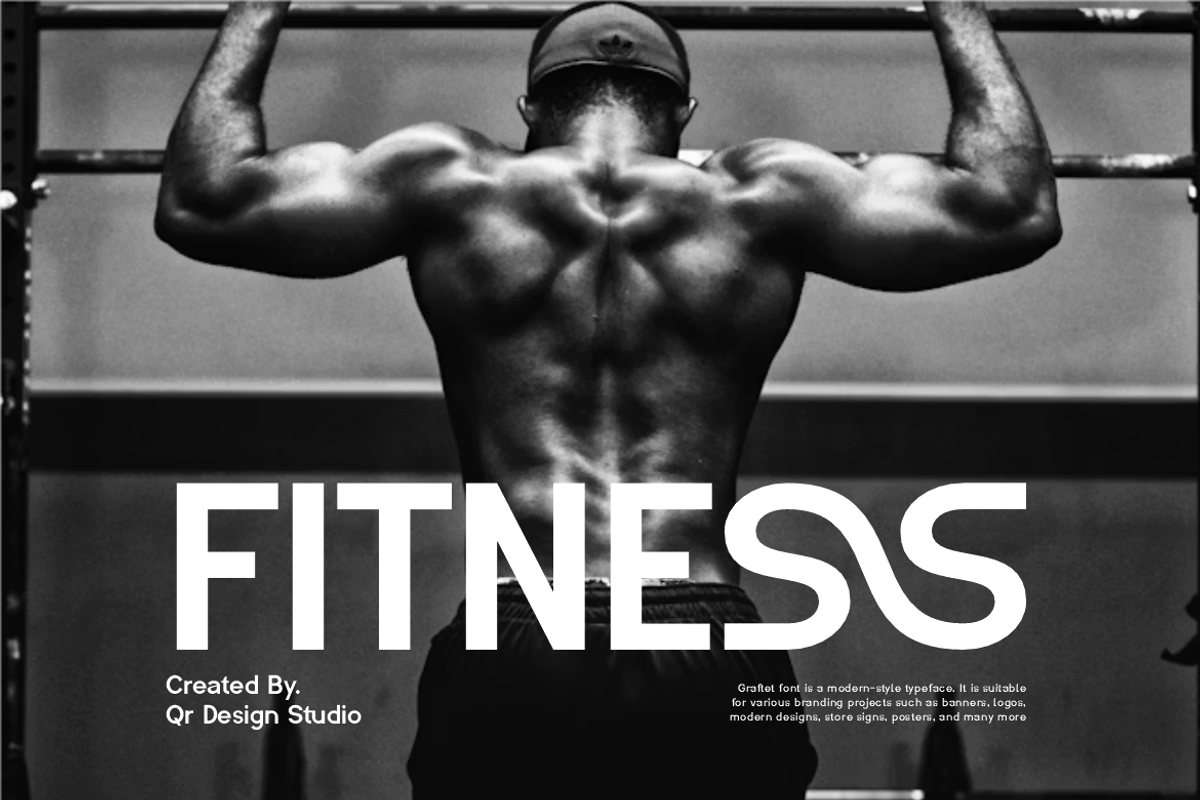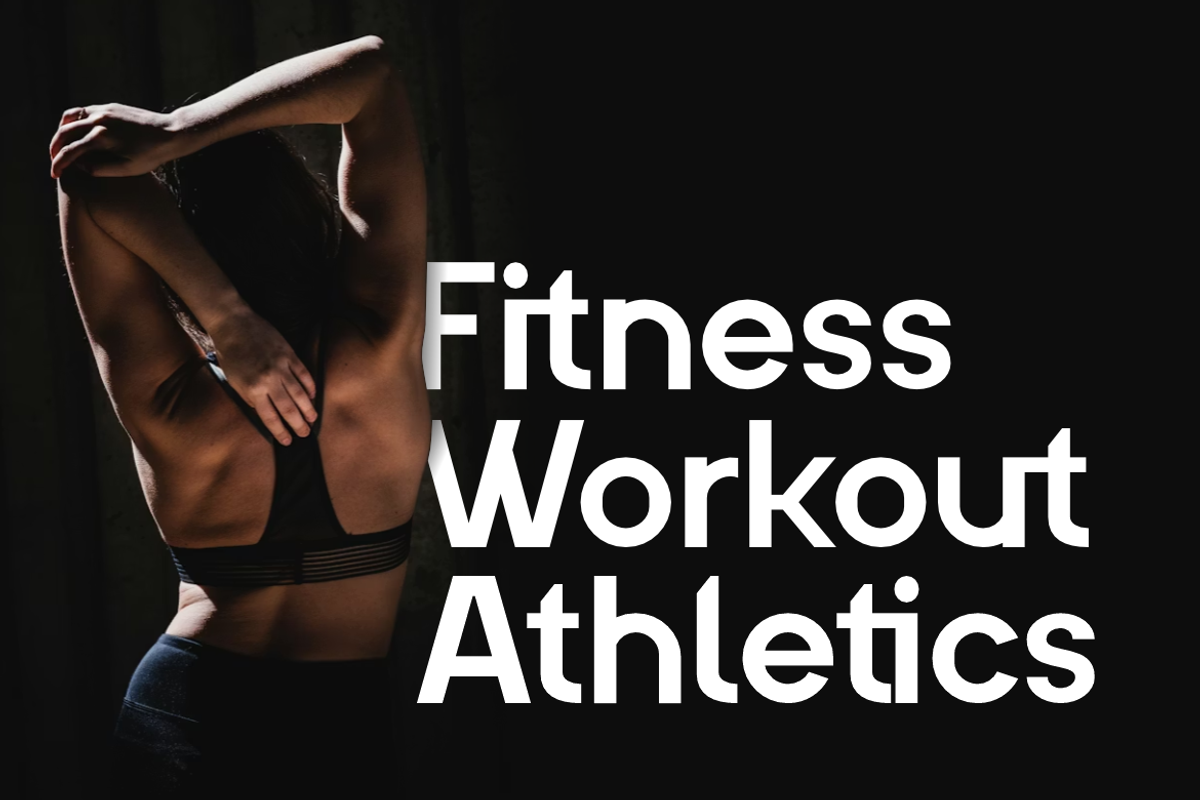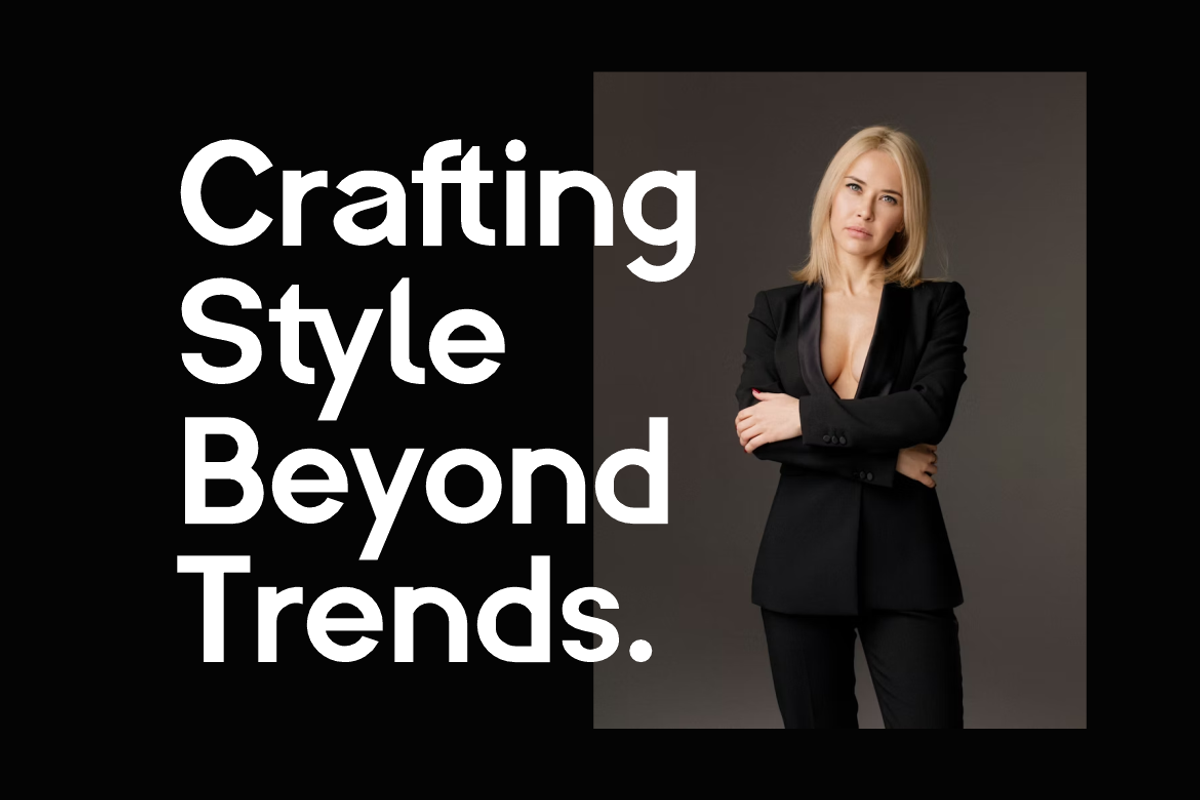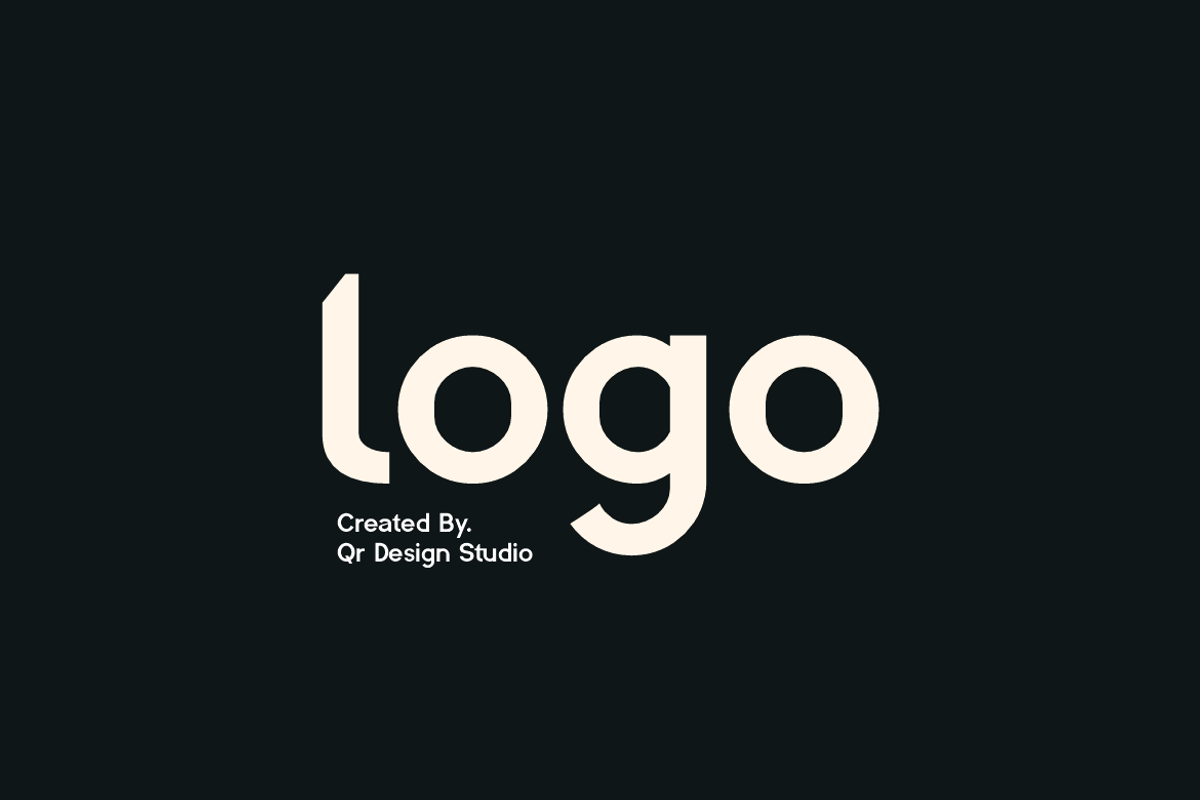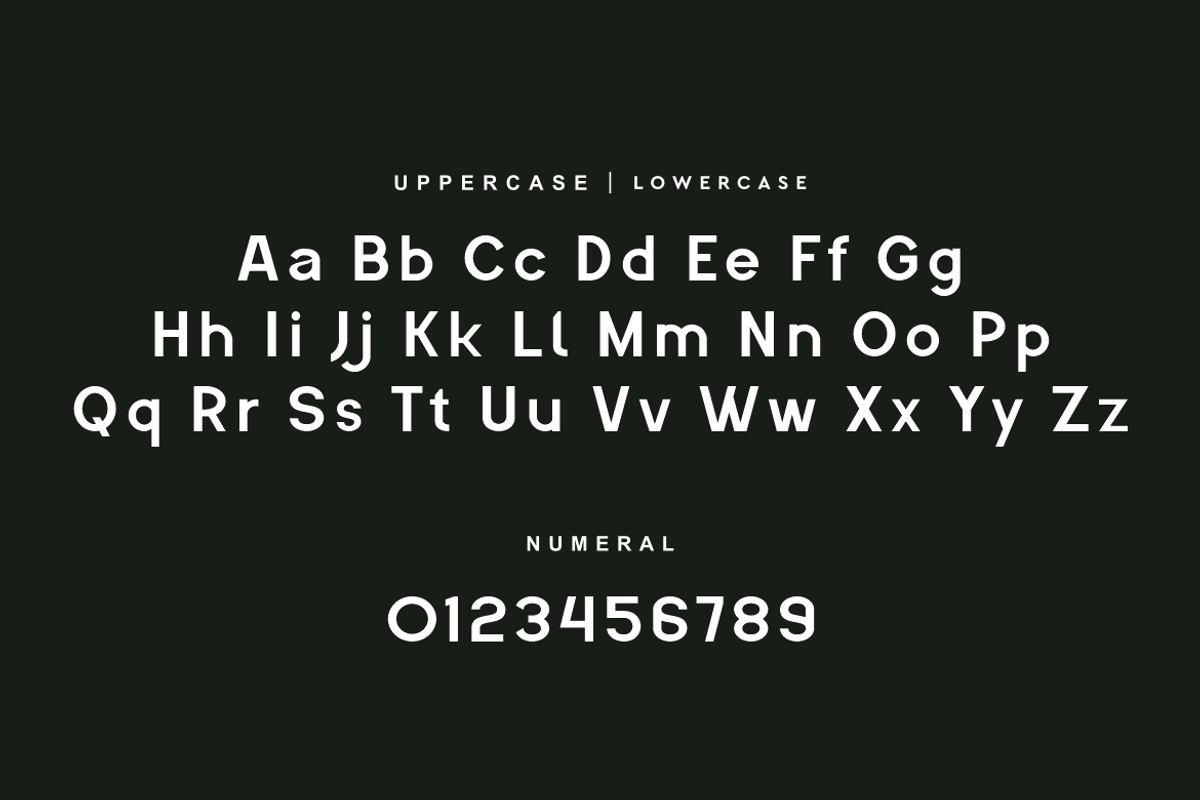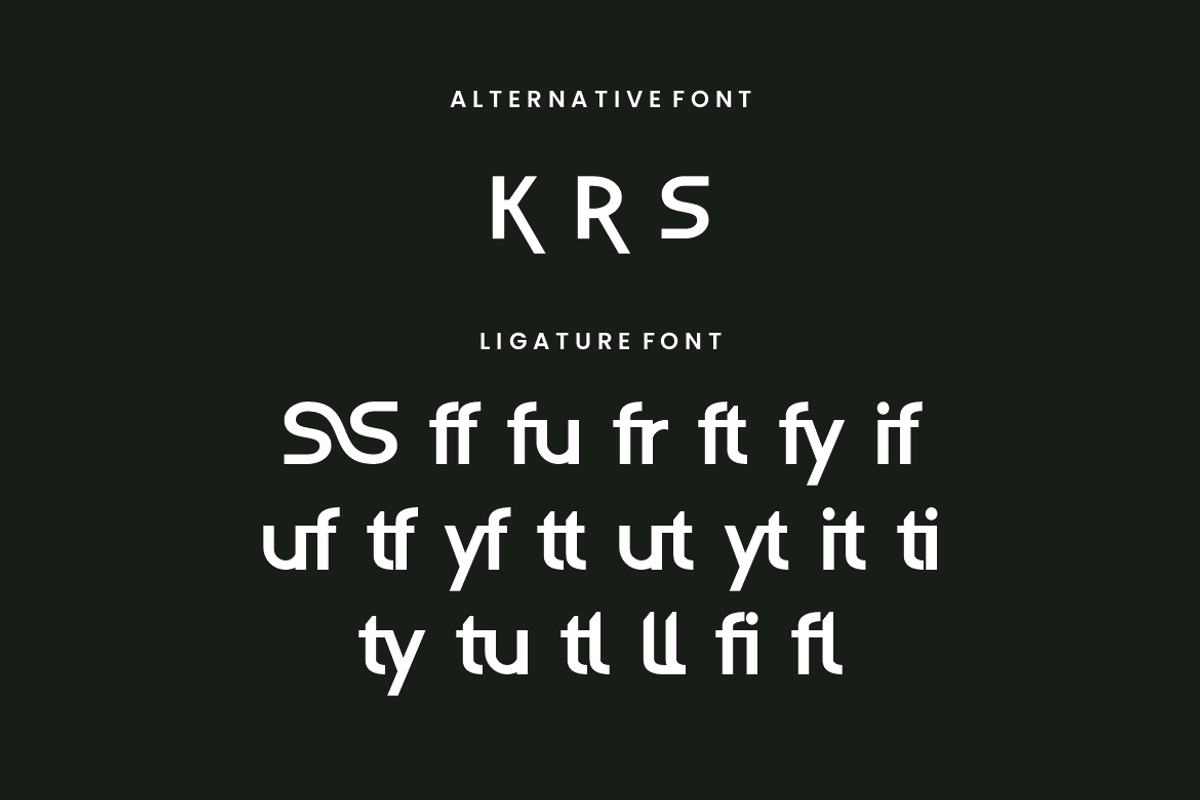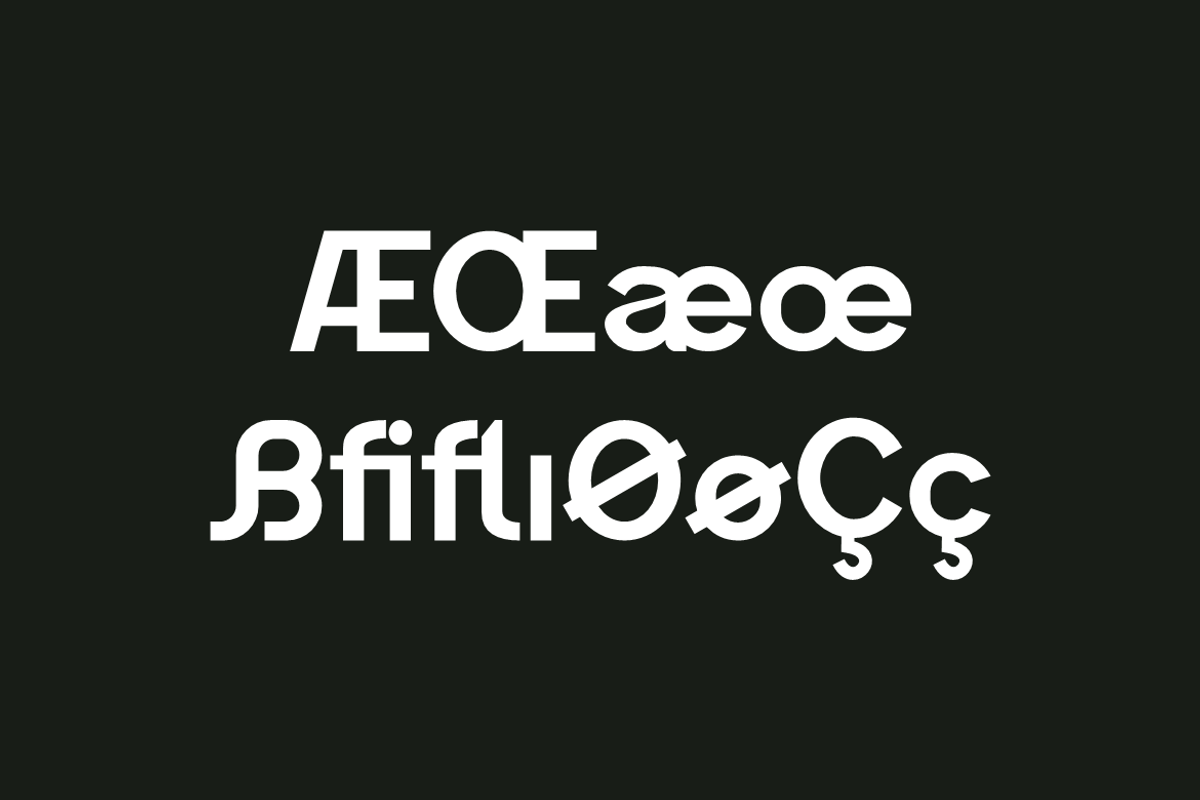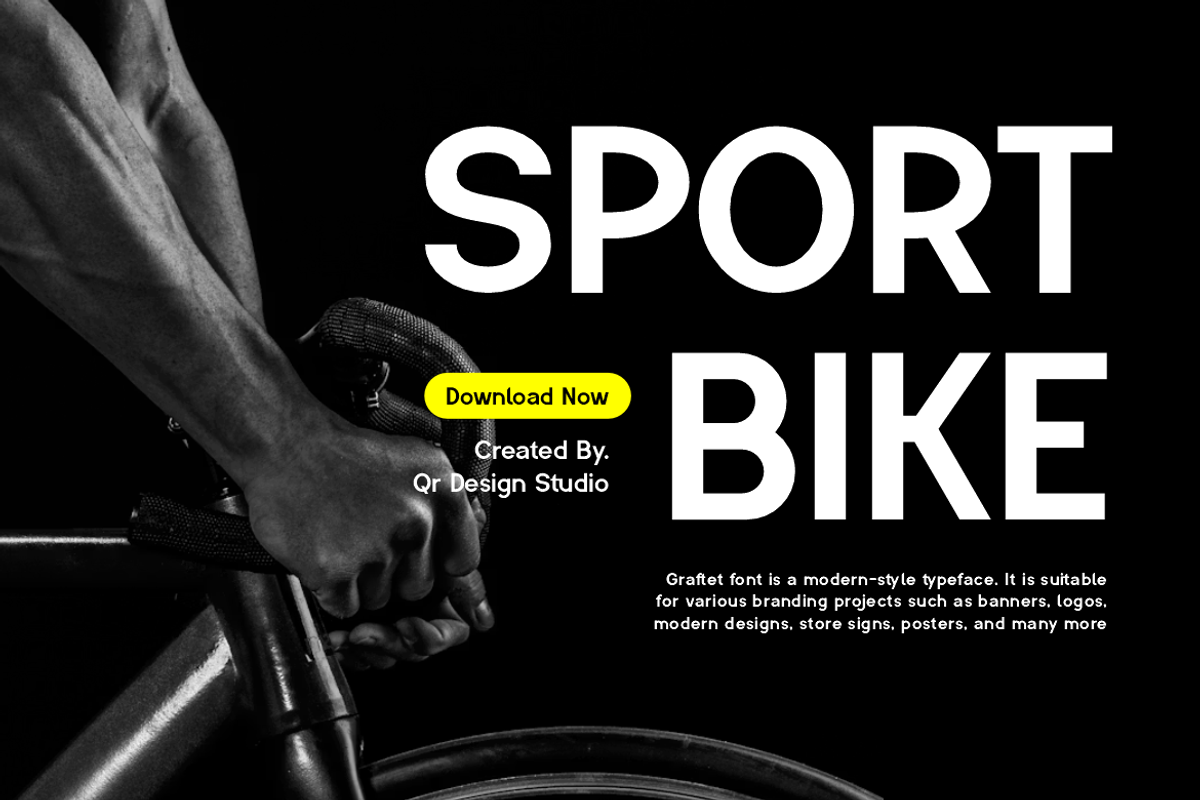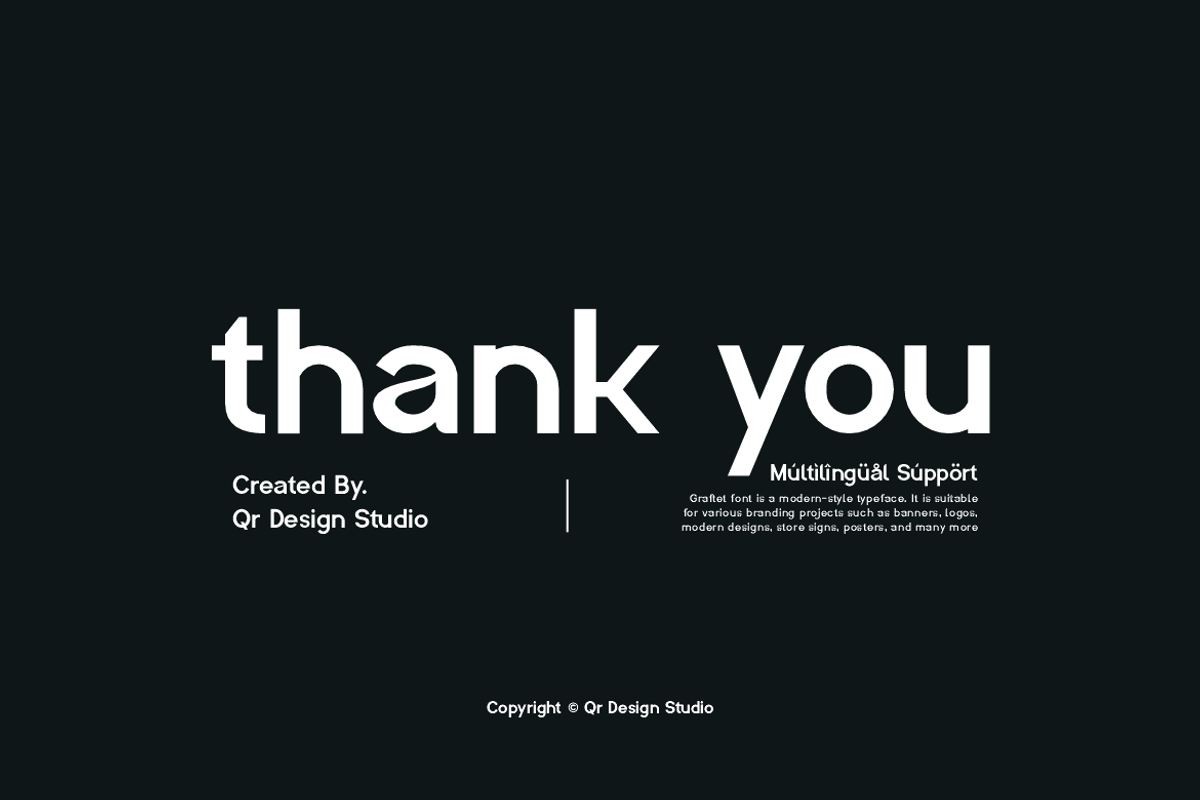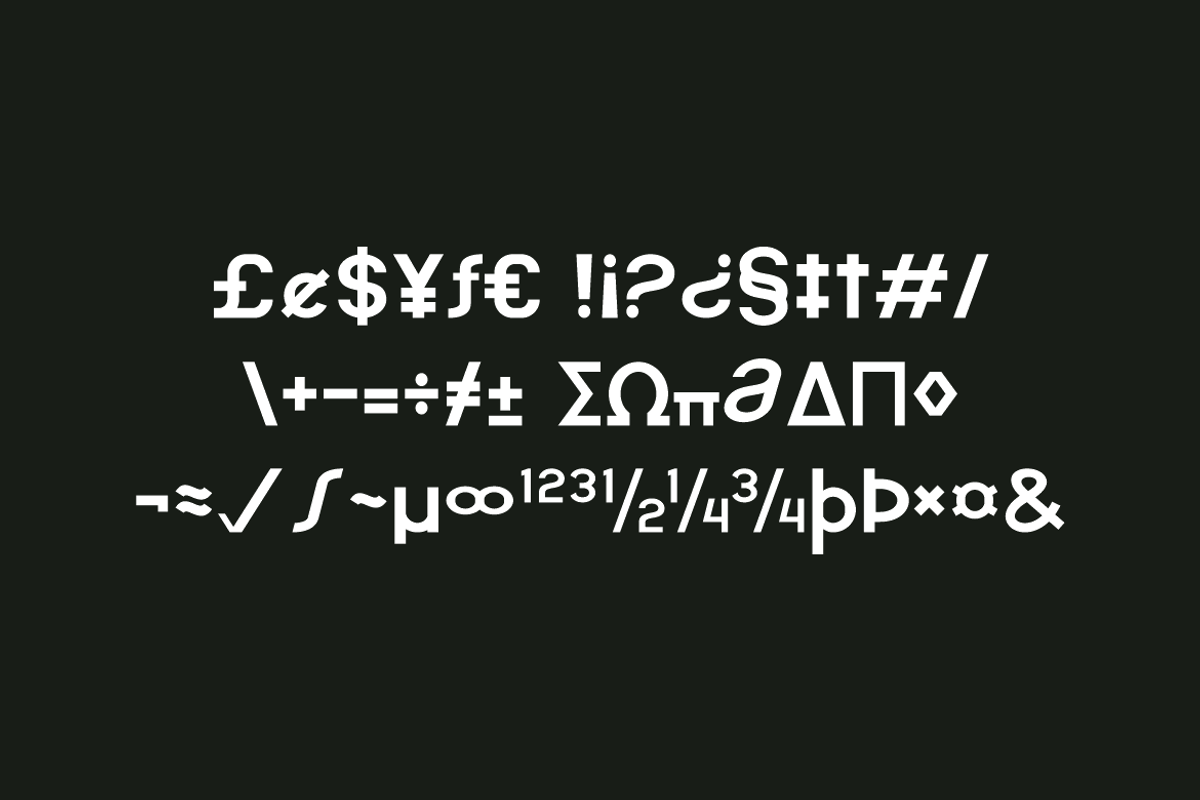
Graftet - Modern Bold Branding Font
Graftet Font is a bold and authentic display typeface. It’s perfect for various branding projects such as logos, modern designs, and more. This font stands out beautifully in a wide range of contexts.